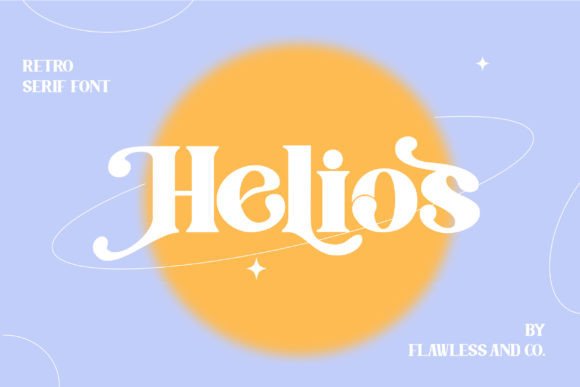
Behold, Helios Font – an audacious display font, reminiscent of the golden era of retro aesthetics. This meticulously designed font family, birthed from the creative minds at Flawless And Co., is a testament to the enduring allure of classic typography. Helios beckons you to embark on a nostalgic journey, evoking memories of carefree summers and leisurely drives along the coast.
Each glyph in the Helios Font collection has been lovingly crafted, imbued with an exquisite attention to detail that sets it apart from the ordinary. Its bold curves and playful serifs exude a timeless elegance, making it a captivating choice for a wide variety of creative projects. Whether you're designing eye-catching posters, crafting elegant invitations, or creating distinctive logos, Helios Font will elevate your designs to new heights.
Harness the limitless potential of Helios Font to infuse your creations with a touch of vintage charm and retro flair. Its versatility shines across an array of applications, effortlessly complementing everything from retro-inspired branding to captivating social media posts. Let Helios Font be your creative companion, guiding you to design projects that resonate with audiences and leave a lasting impression.
Step into a world of nostalgia and sophistication with Helios Font. Its timeless beauty is sure to captivate and inspire, adding a touch of retro charm to your creative endeavors. Embrace the allure of this exceptional font family and unlock a world of design possibilities. The Helios Font collection awaits you – dive into its depths and witness the transformation of your creations.